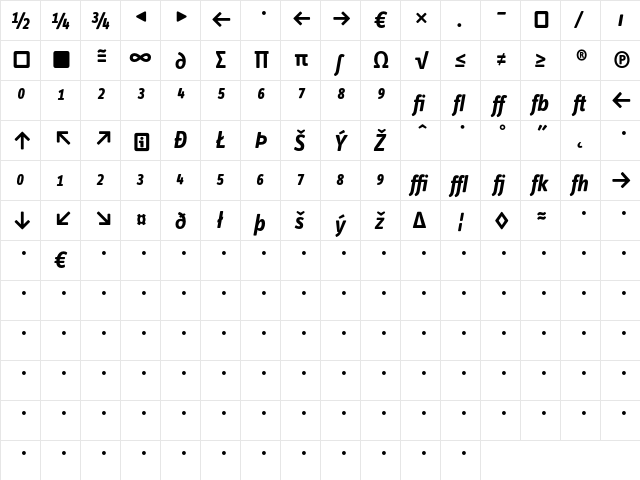
InfoTextBold ItalicExp
Design Context for InfoTextBold Typeface
InfoTextBold offers clean, dependable letterforms without strong stylistic allegiance, making it a practical choice for designers who need flexibility. The slanted form adds forward momentum and visual energy. The heavy weight commands attention and anchors typographic hierarchies.
Pro Tip: Use InfoTextBold for emphasis, pull quotes, and subheadings where its slanted energy can add rhythm to the layout.